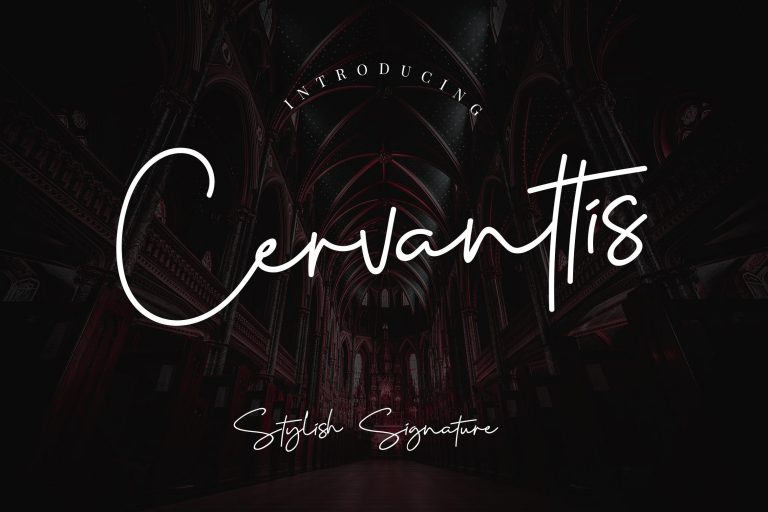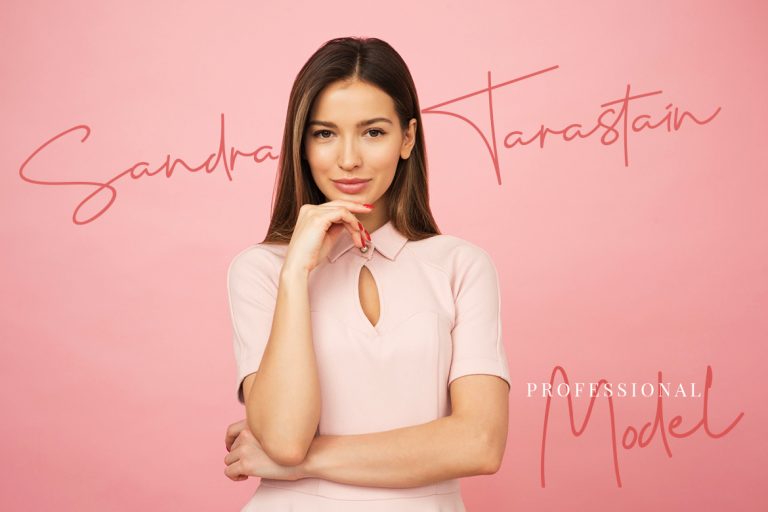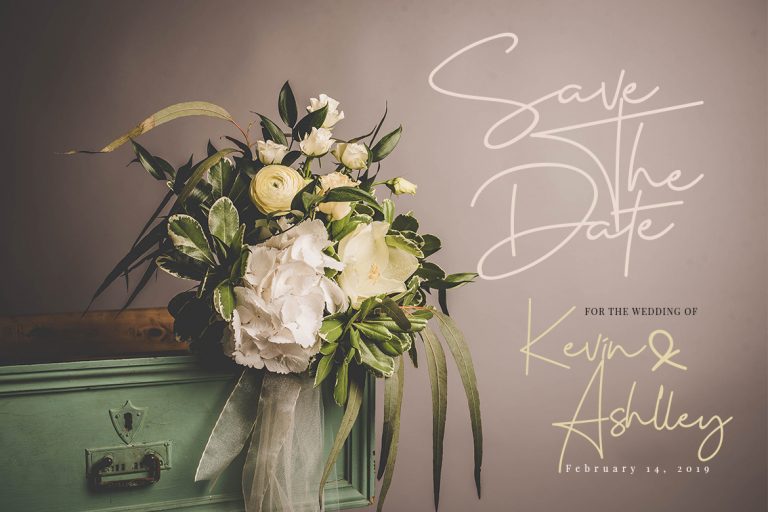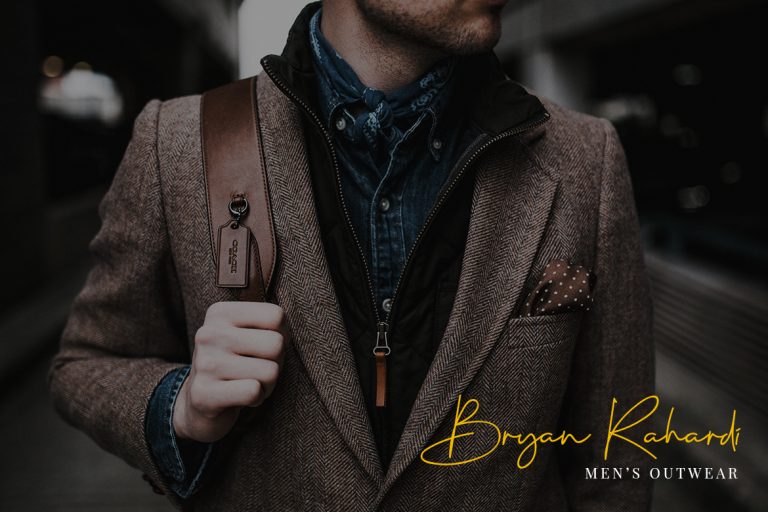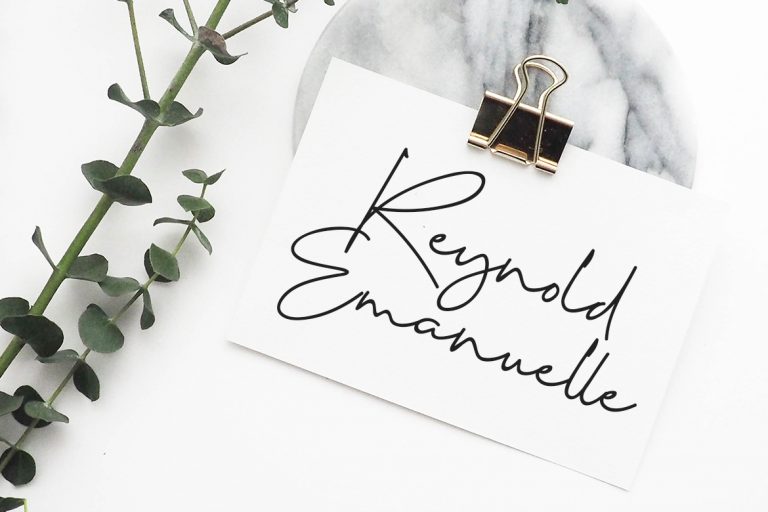
Cervanttis Signature Script is a handwritten signature script with a natural & stylish flow. This collection of scripts is perfect for personal branding.
Cervanttis Signature Script is perfect for branding projects, logo, wedding designs, social media posts, advertisements, product packaging, product designs, label, photography, watermark, invitation, stationery and any projects that need handwriting taste.
Cervanttis Signature Script